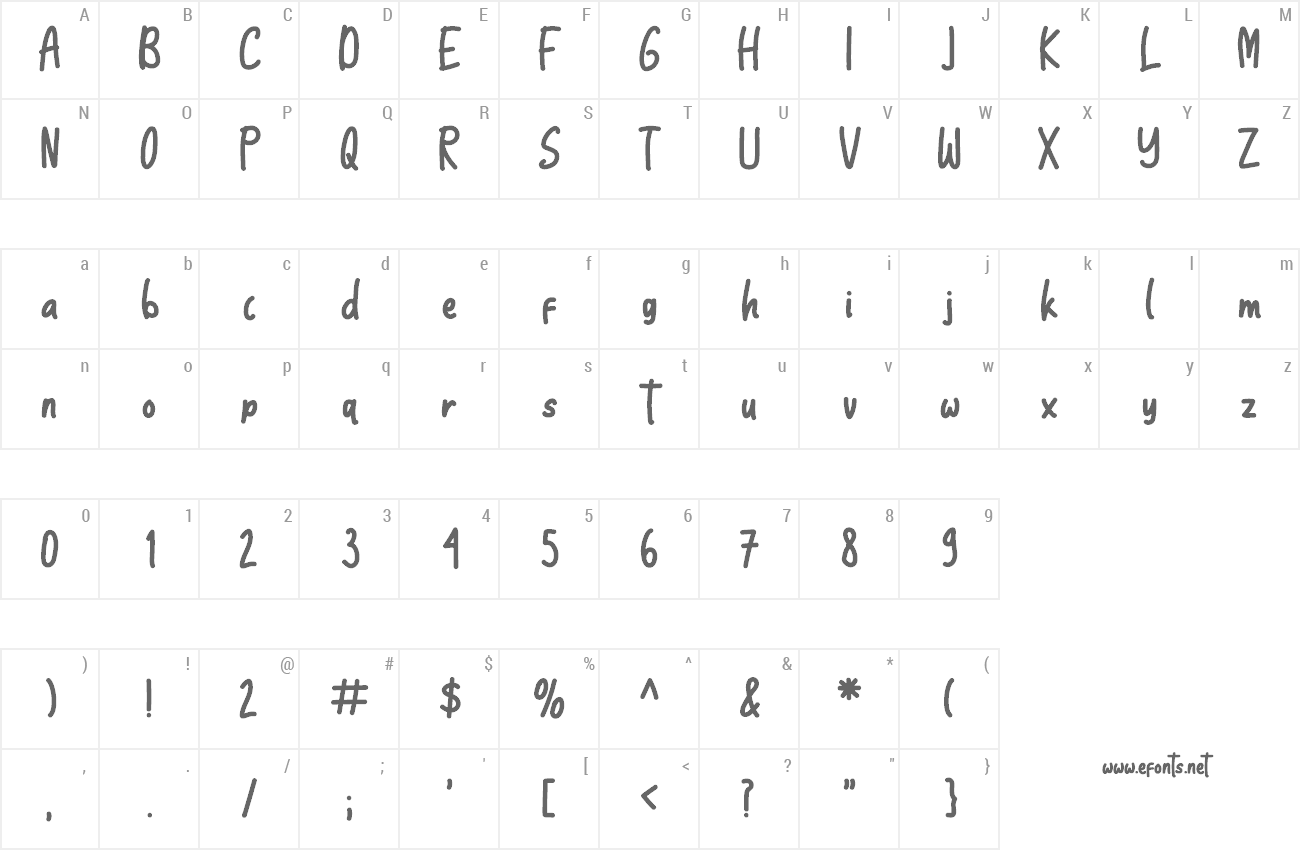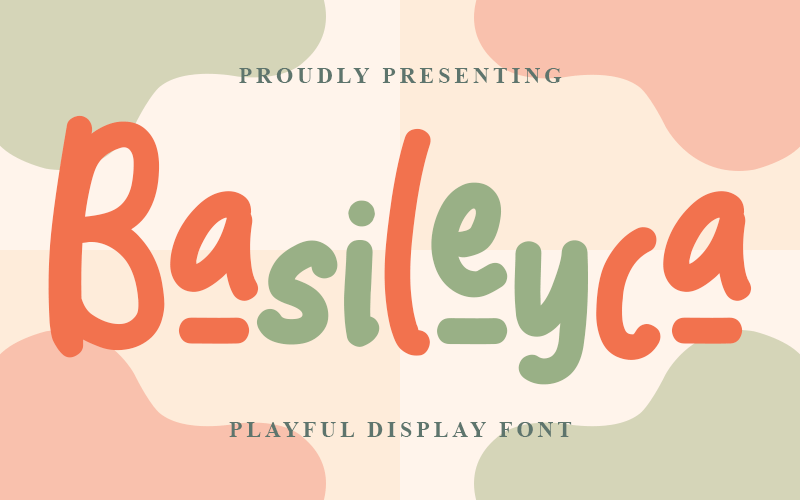
| Font name: | Basileyca |
| Author: | Denny Sutanto |
Basileyca Font is a Playful Display Font that really energetic, happy and cheerful. This Font suits for various vector designs, printing such as digital wedding invitations, blogs, online shops, social media, while printing can be used in the field of product clothing, accessories, bags, pins, logos, business cards, watermarks and many others. What�s Included : � OTF & TTF � Works on PC & Mac � Easy to use ( Installations ) � Easy Convert to webfont � Compabilty Windows, Apple, Linux, Cricut, Silhouette and Other cutting machines NOTE: This Demo is for PERSONAL USE ONLY! But any donation are very appreciated. PayPal Account for Donations: https://lnkd.in/fPg-VuA Link for Donations via PayPal: paypal.me/dennysutanto93 link to purchase full version and commercial license: - Creative Fabrica: https://www.creativefabrica.com/product/basileyca/ref/235725/ Please visit our store for more great fonts: - https://www.creativefabrica.com/designer/densudesign/ref/235725/ and follow my Instagram for update: https://www.instagram.com/densudesign/ Thank You |